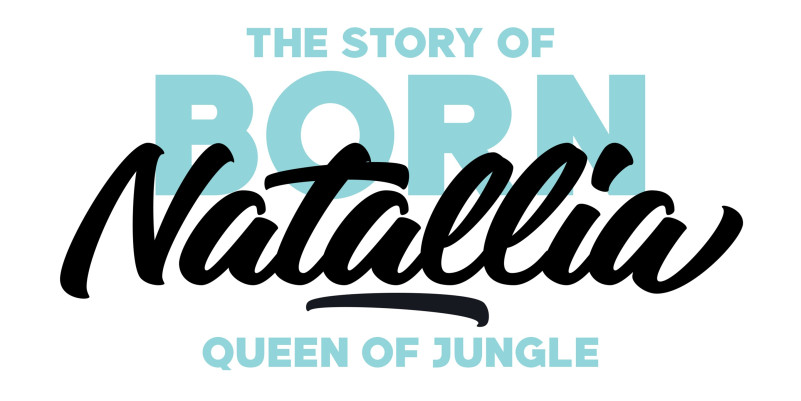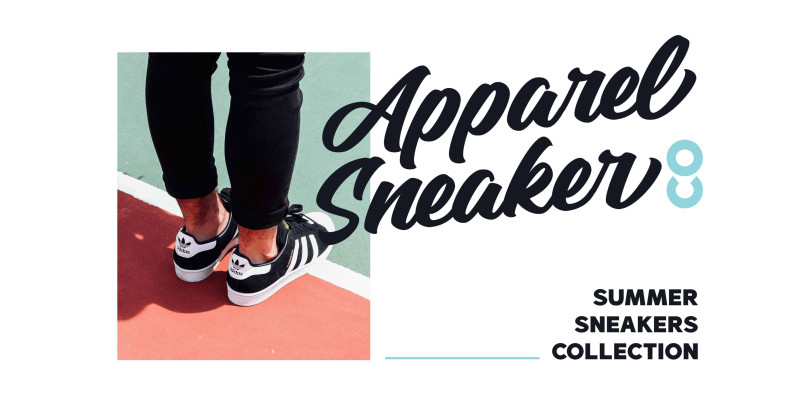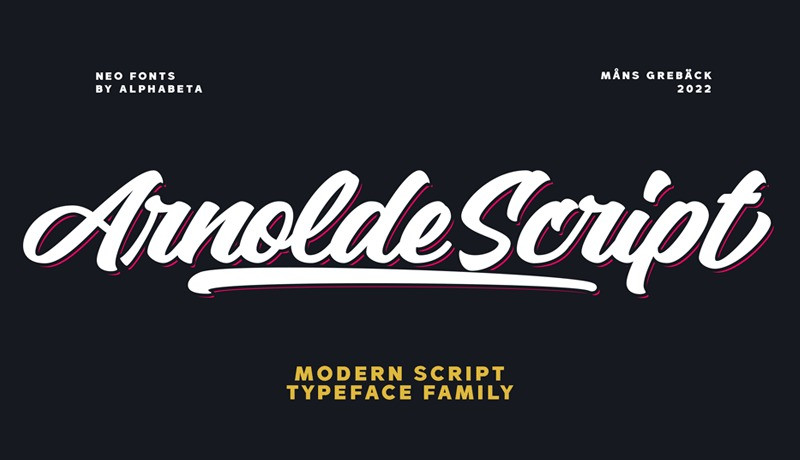
Arnolde Script Font
Arnolde Script Font,  is a heavy script typeface, drawn to emit a strong personality. It has a bold expression and confident movements, and is perfect for a modern script logo.
Use underscore _ anywhere in a word to make an underline.
Example: Love_letter
Use multiple underscores to make different swashes.
Example: Cute_____ness
Use numbersign # after any letter to make a swash.
Example: Welcome# Back#